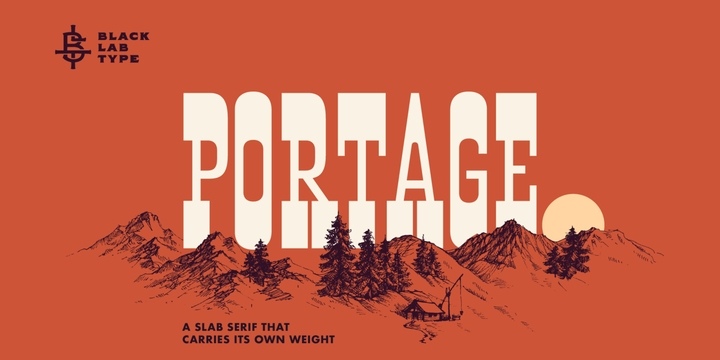
BLT Portage Font
BLT Portage Font is perfect for outdoor adventure companies, wilderness expedition branding, camping equipment packaging, national park communications, hiking trail signage, canoe and kayak manufacturers, rustic lodge materials, outdoor gear retailers, adventure tourism marketing, and rugged outdoor lifestyle brands.
BLT Portage Font creates excitement because it embodies the rugged spirit and adventurous essence of wilderness exploration with its sturdy letterforms and expedition-inspired character design. The font's robust construction and outdoor aesthetic instantly convey durability and authentic adventure, making any brand appear reliable and genuinely connected to wilderness culture. Its carefully crafted trail details and expedition character create an immediate sense of outdoor exploration that captivates audiences seeking authentic adventure experiences, wilderness expeditions, and products that celebrate the transformative power of outdoor exploration and natural discovery.
The BLT Portage Font family includes multiple weights and styles: Regular, Bold, Light, Medium, Italic, Condensed, Extended, Rugged, Trail, and Expedition versions. Each variant maintains the font's signature outdoor character while offering different levels of wilderness styling and adventure authenticity suitable for various outdoor recreation and expedition applications.
This powerful typeface brings the authentic spirit of wilderness exploration into contemporary outdoor branding with remarkable durability and adventure appeal. BLT Portage Font Free Download provides outdoor brands and adventure companies with access to premium expedition-inspired typography that embodies the essence of wilderness exploration and outdoor adventure culture. The font's rugged design and outdoor authenticity make it ideal for businesses seeking to establish meaningful connections with outdoor enthusiasts and adventure seekers who value authentic wilderness experiences and reliable outdoor equipment. Whether you're creating branding for outdoor outfitters, designing materials for adventure tourism companies, developing signage for wilderness areas, or producing marketing content for expedition services, this font delivers the authentic outdoor atmosphere that resonates with audiences seeking genuine wilderness adventures, outdoor exploration, and the life-changing experiences that come from connecting with nature. Its versatile design ensures excellent performance across both weatherproof outdoor applications and dynamic digital adventure platforms while maintaining the character of authentic expedition typography. The font excels in applications requiring outdoor credibility and adventure appeal. Outdoor industry professionals appreciate its ability to convey wilderness authenticity while remaining highly functional for various outdoor equipment documentation and trail communication materials. The comprehensive character set includes outdoor symbols and extensive international language support, making it perfect for global outdoor brands and international adventure organizations seeking to communicate authentic wilderness values, expedition reliability, and outdoor adventure spirit to diverse worldwide audiences who embrace outdoor exploration, seek wilderness challenges, and value the transformative power of authentic outdoor experiences that connect people with nature and create lasting memories through genuine adventure and wilderness discovery.